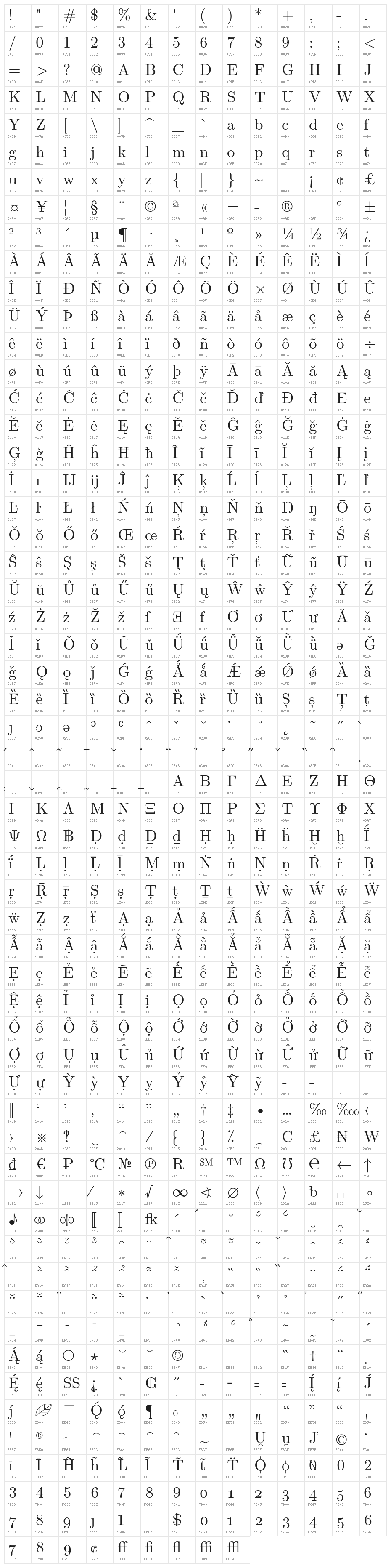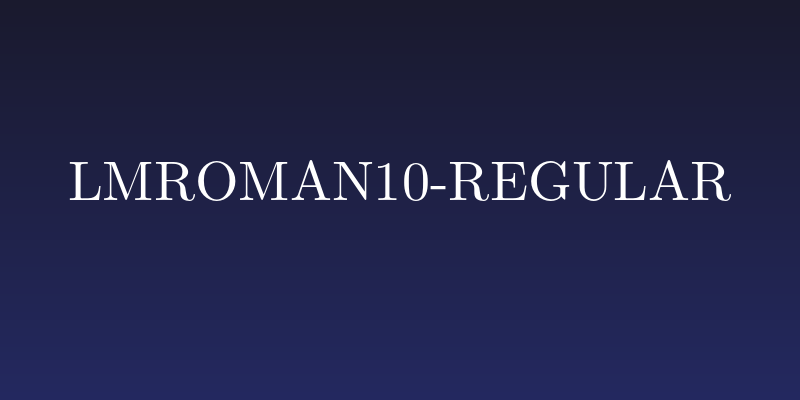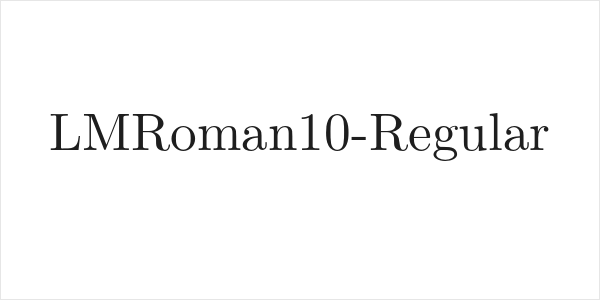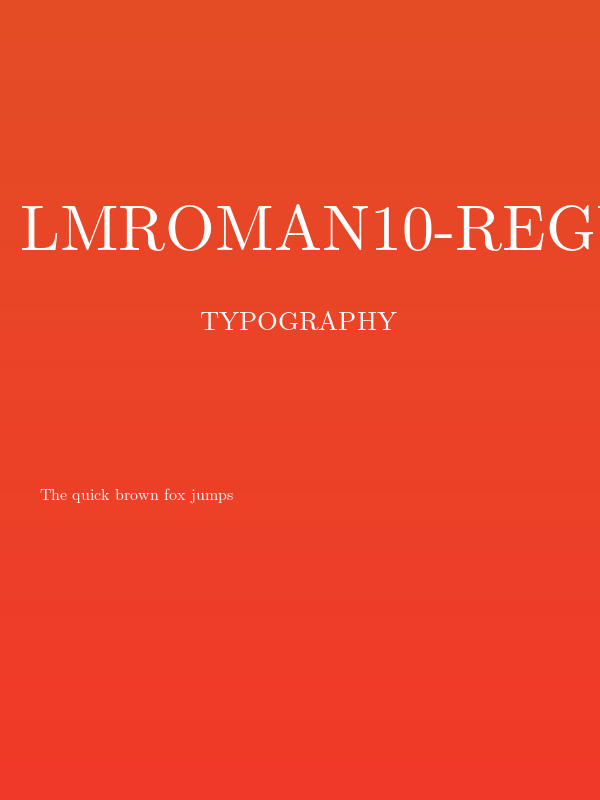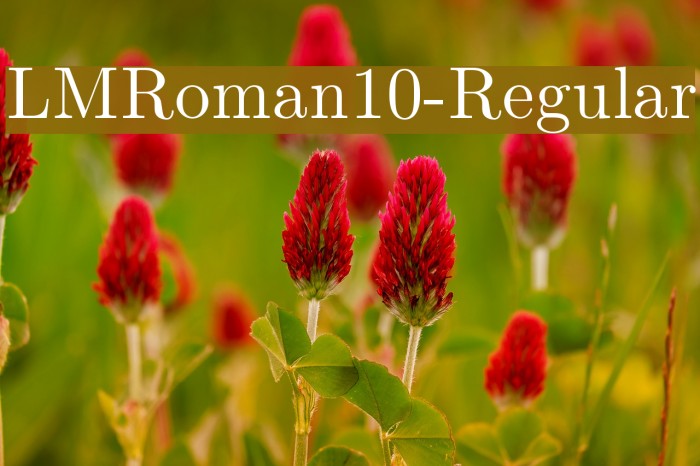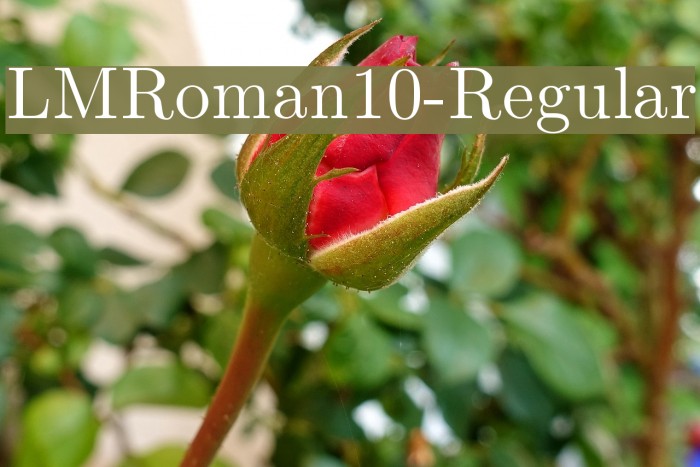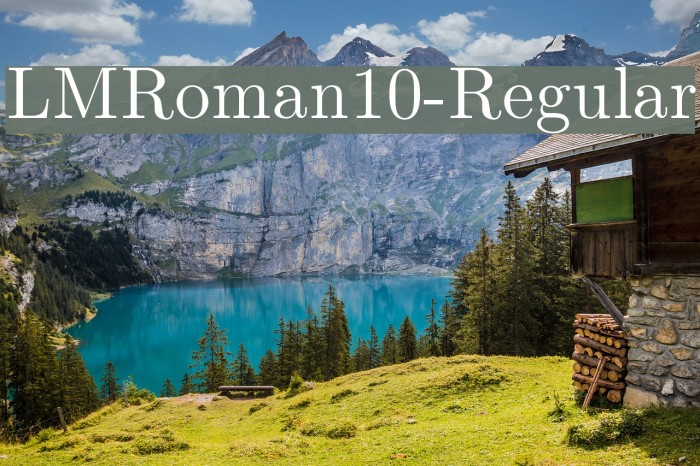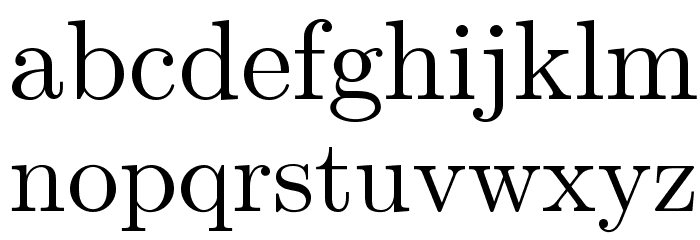
LMRoman10-Regular Font
LMRoman10-Regular Description
This font features a classic serif style with elegant, well-defined strokes and a balanced structure. The uppercase letters are bold and commanding, while the lowercase letters maintain a refined and sophisticated appearance. The numerals are clear and distinct, making them highly legible. Special characters are designed with precision, adding to the font's versatility. The overall design is timeless, suitable for a variety of formal and professional applications.
| Overall Style | Classic |
| Use Case | Body text, Headlines, Formal documents |
| Proposed Projects | Ideal for book typesetting, formal invitations, academic papers, and corporate branding. |